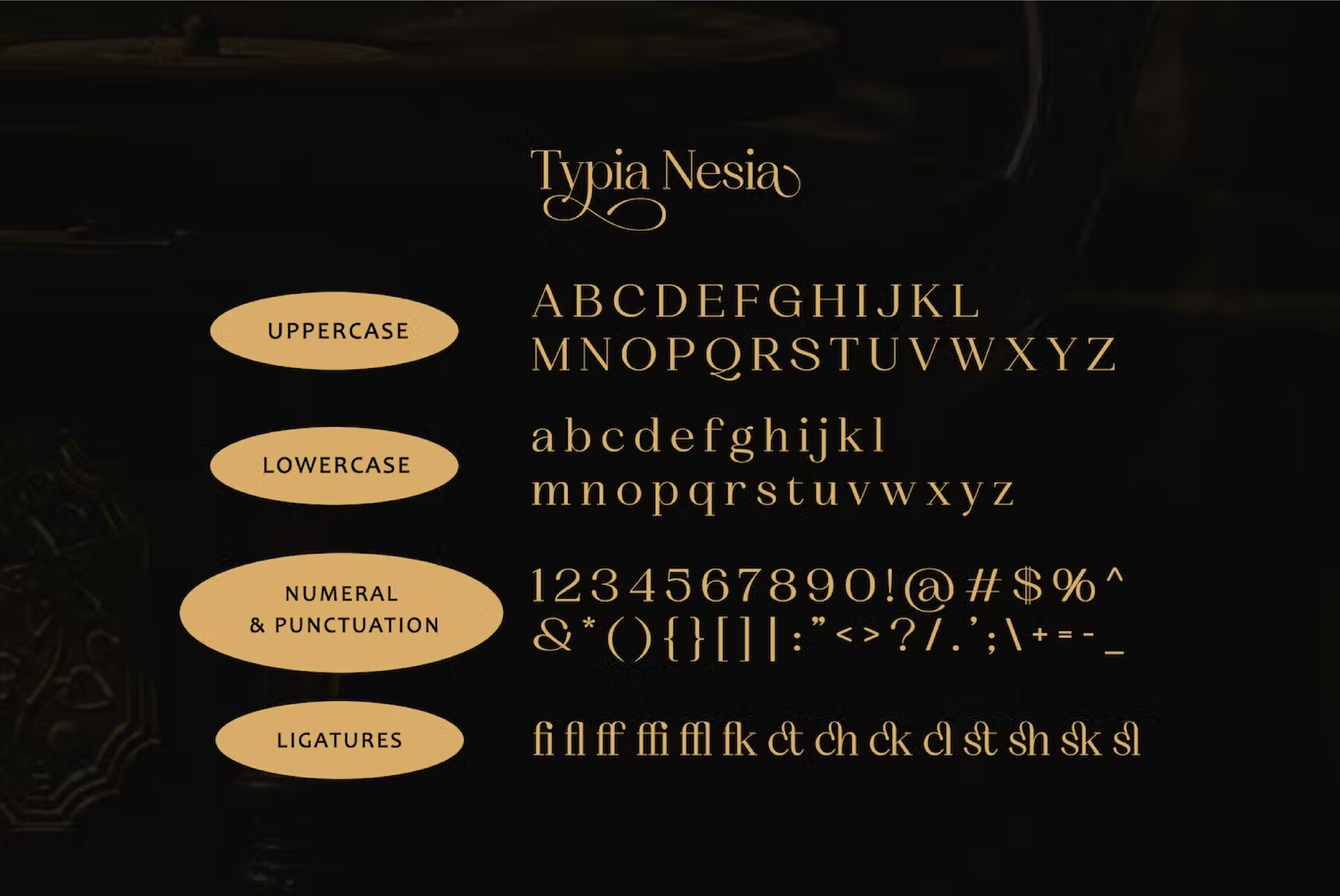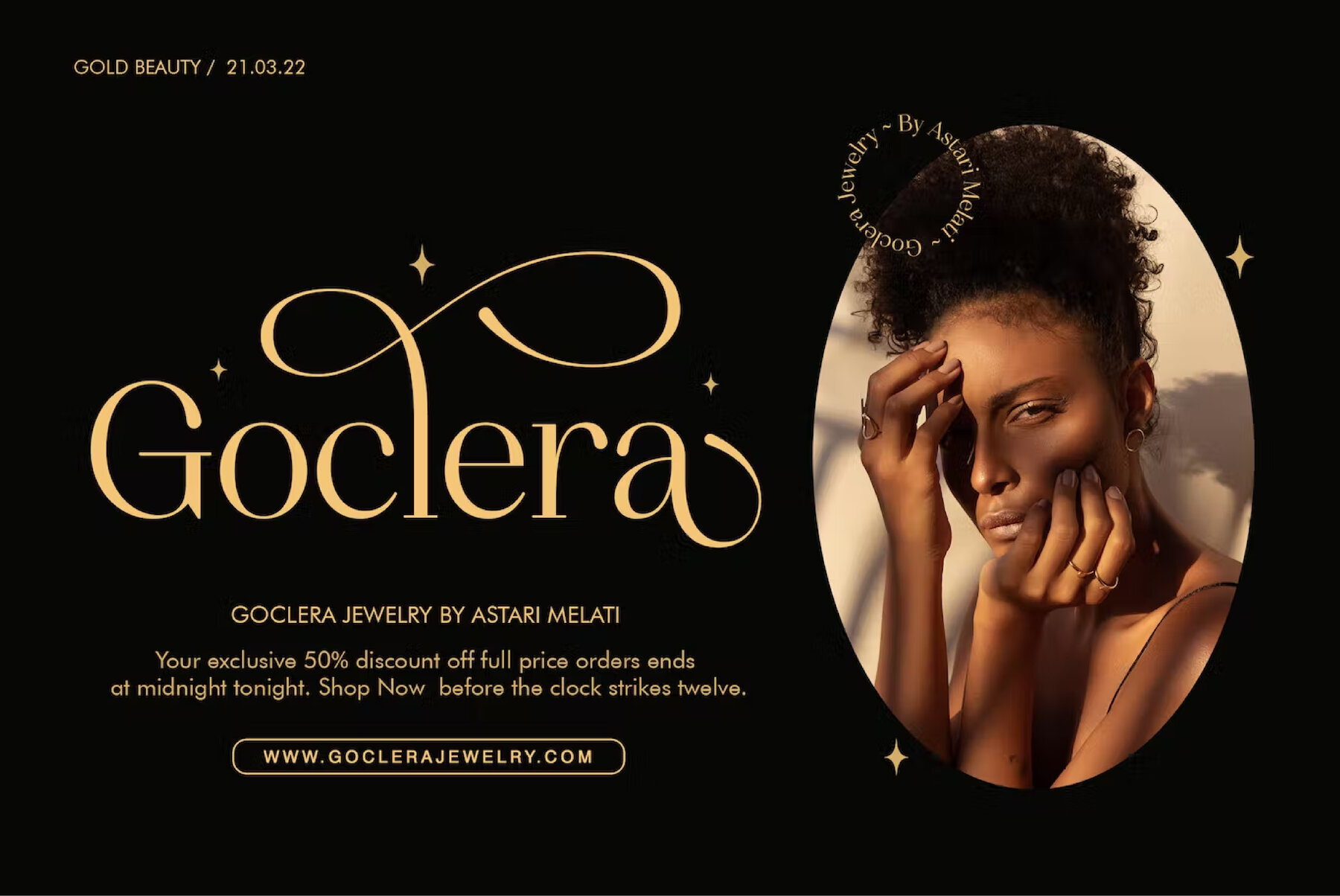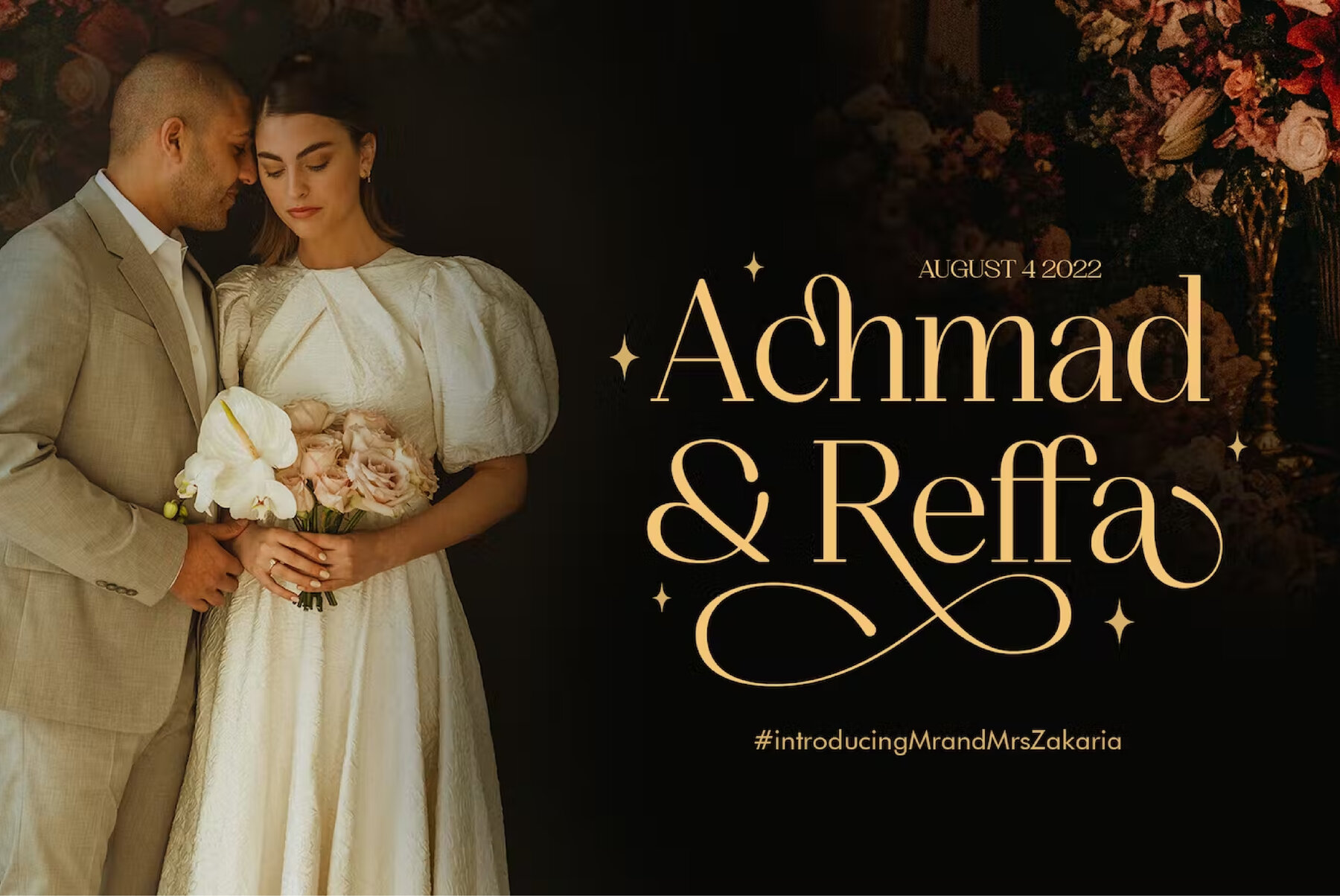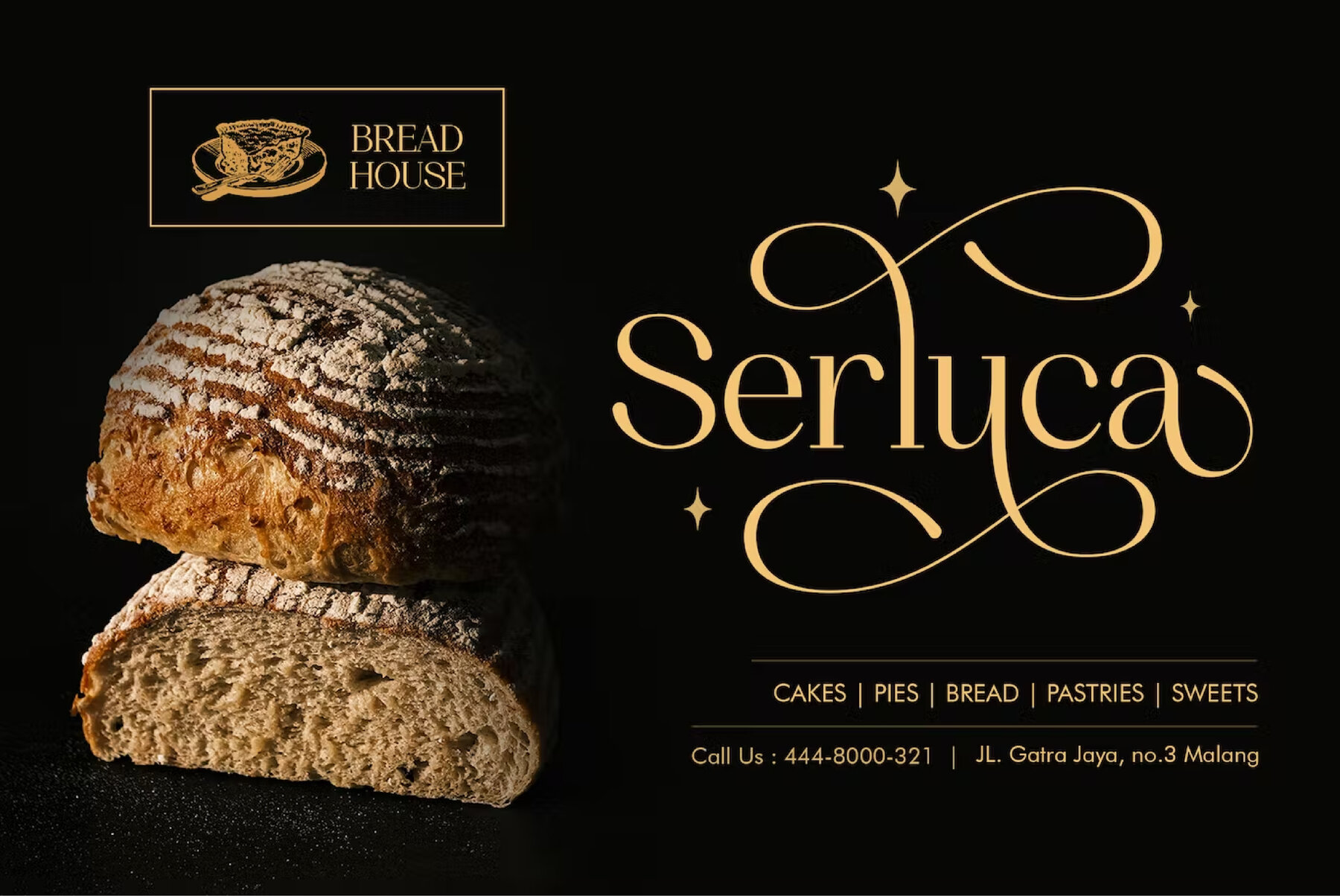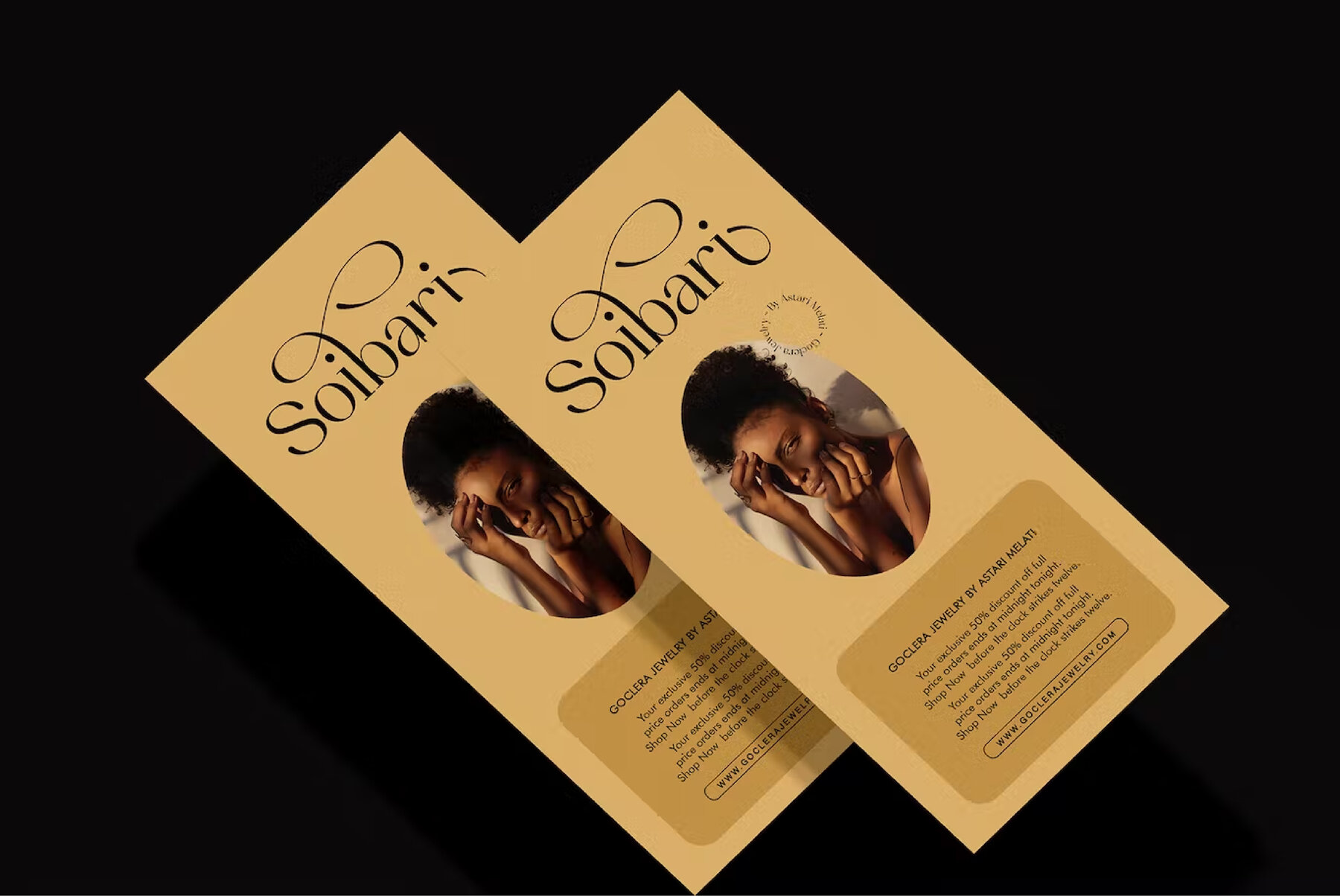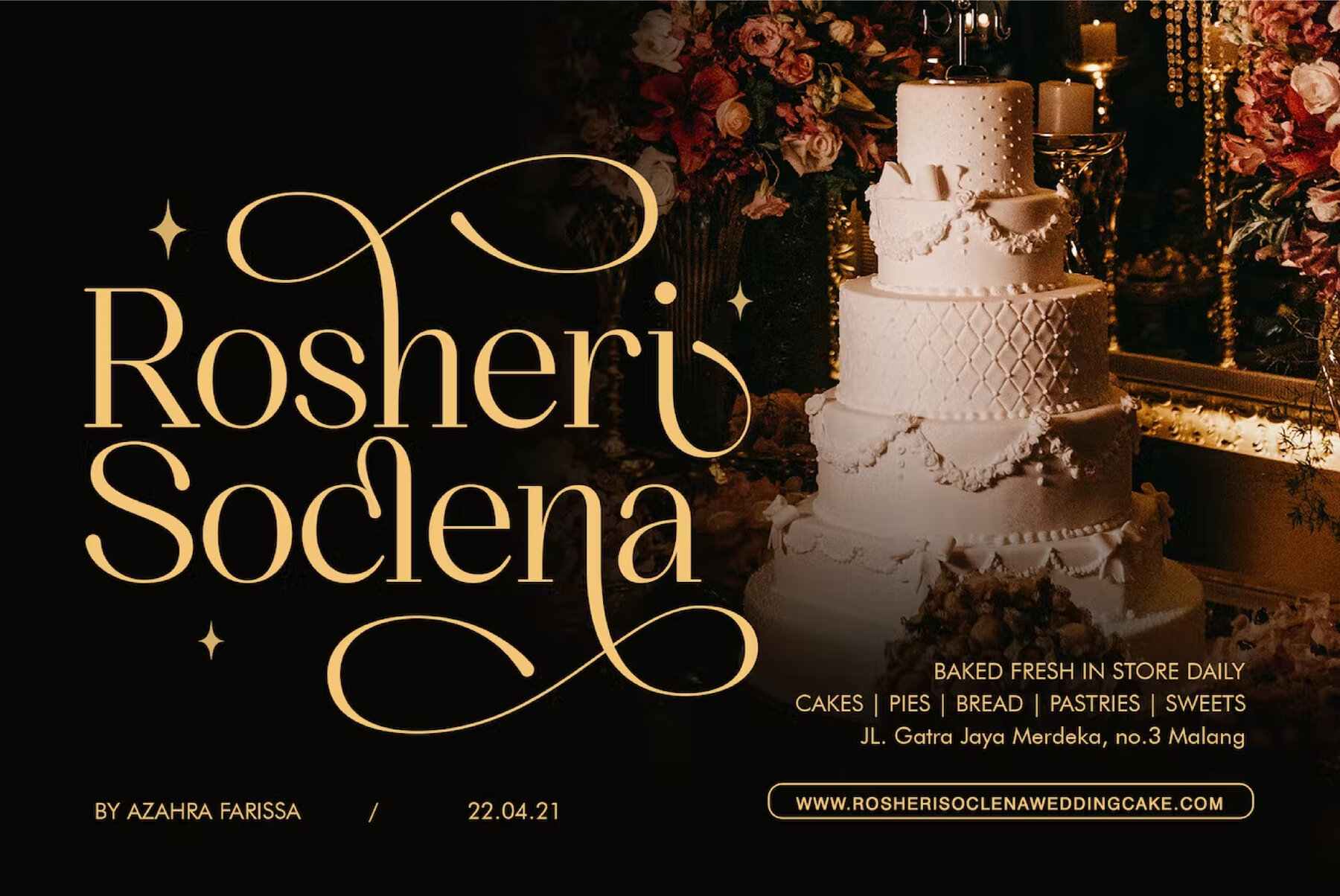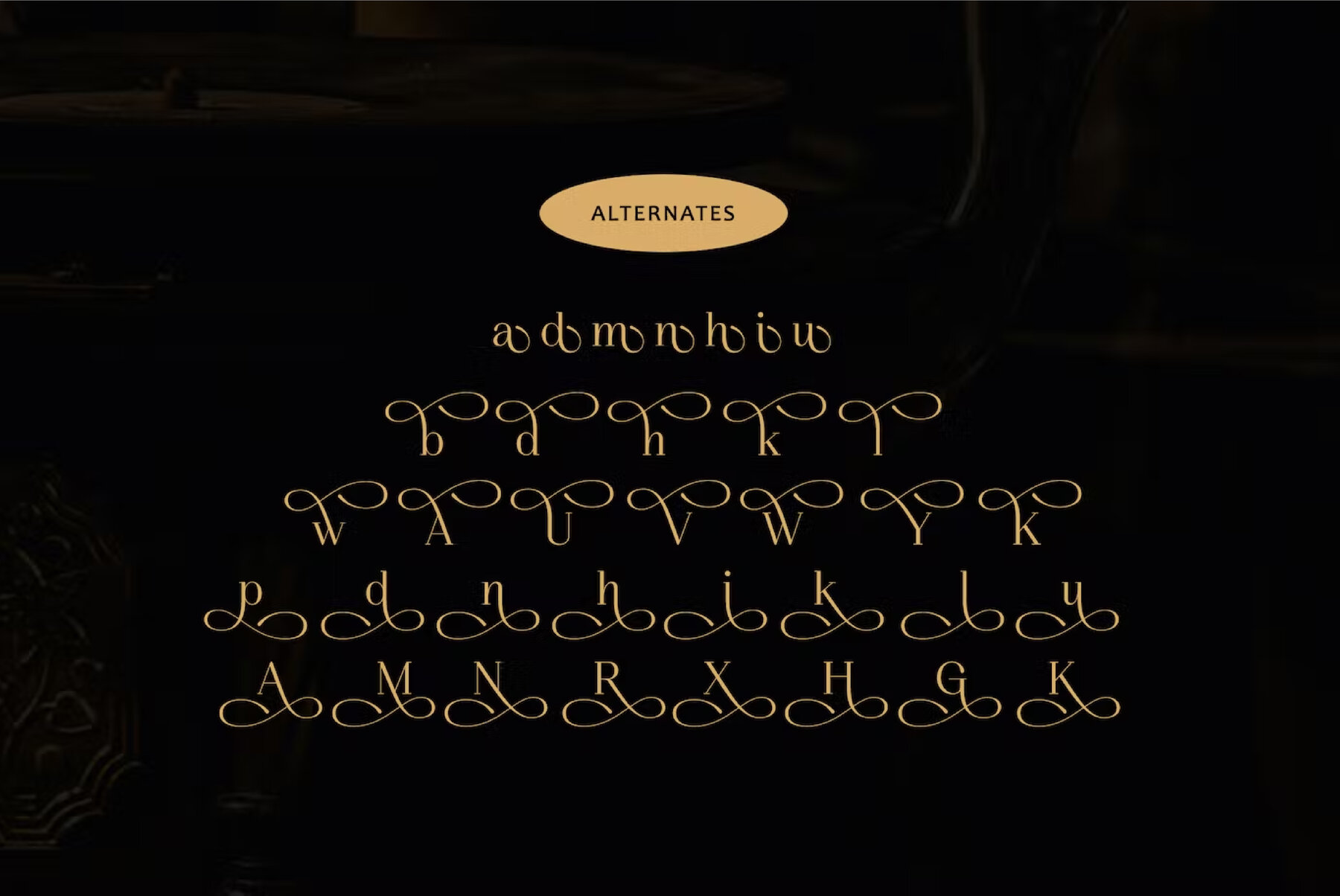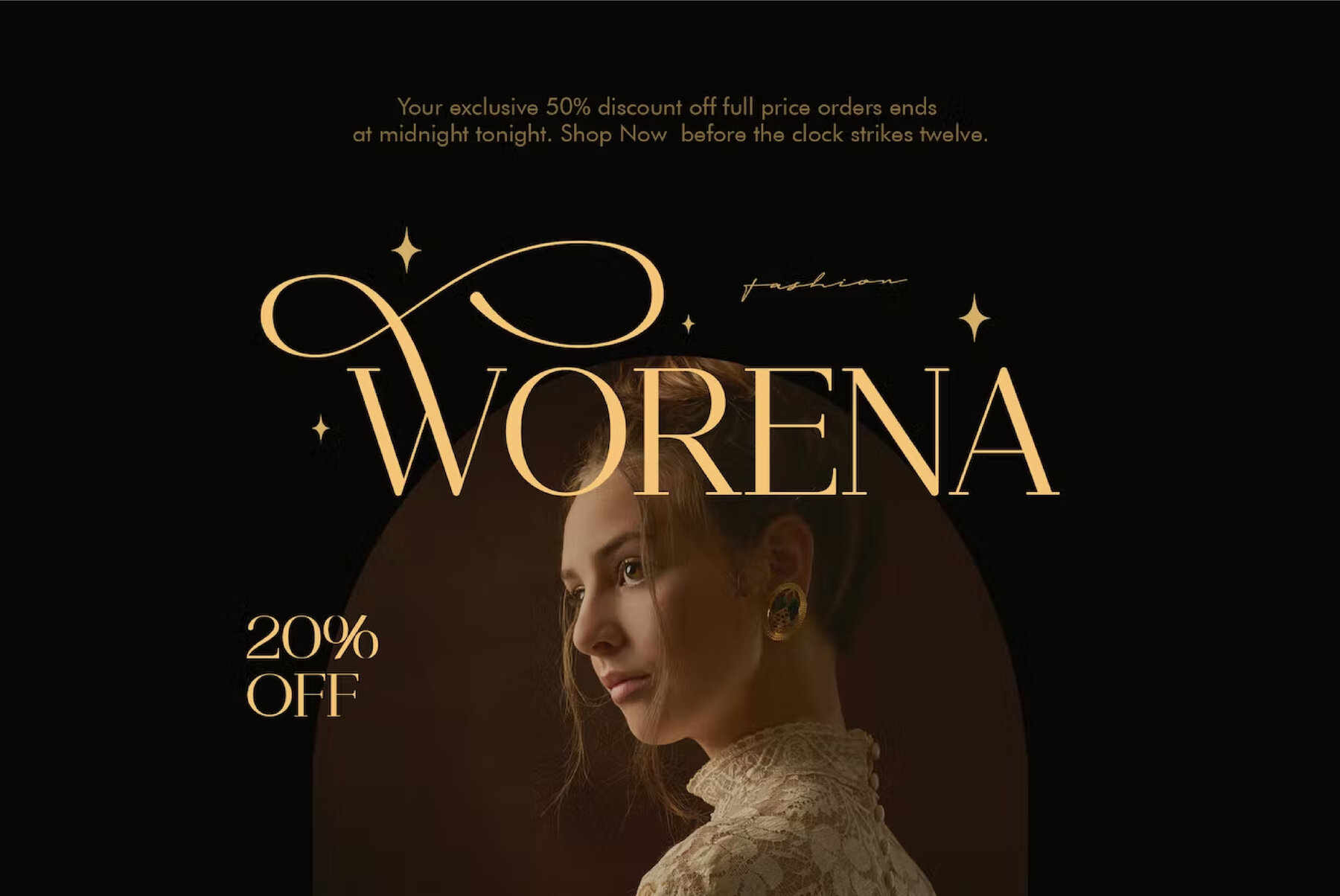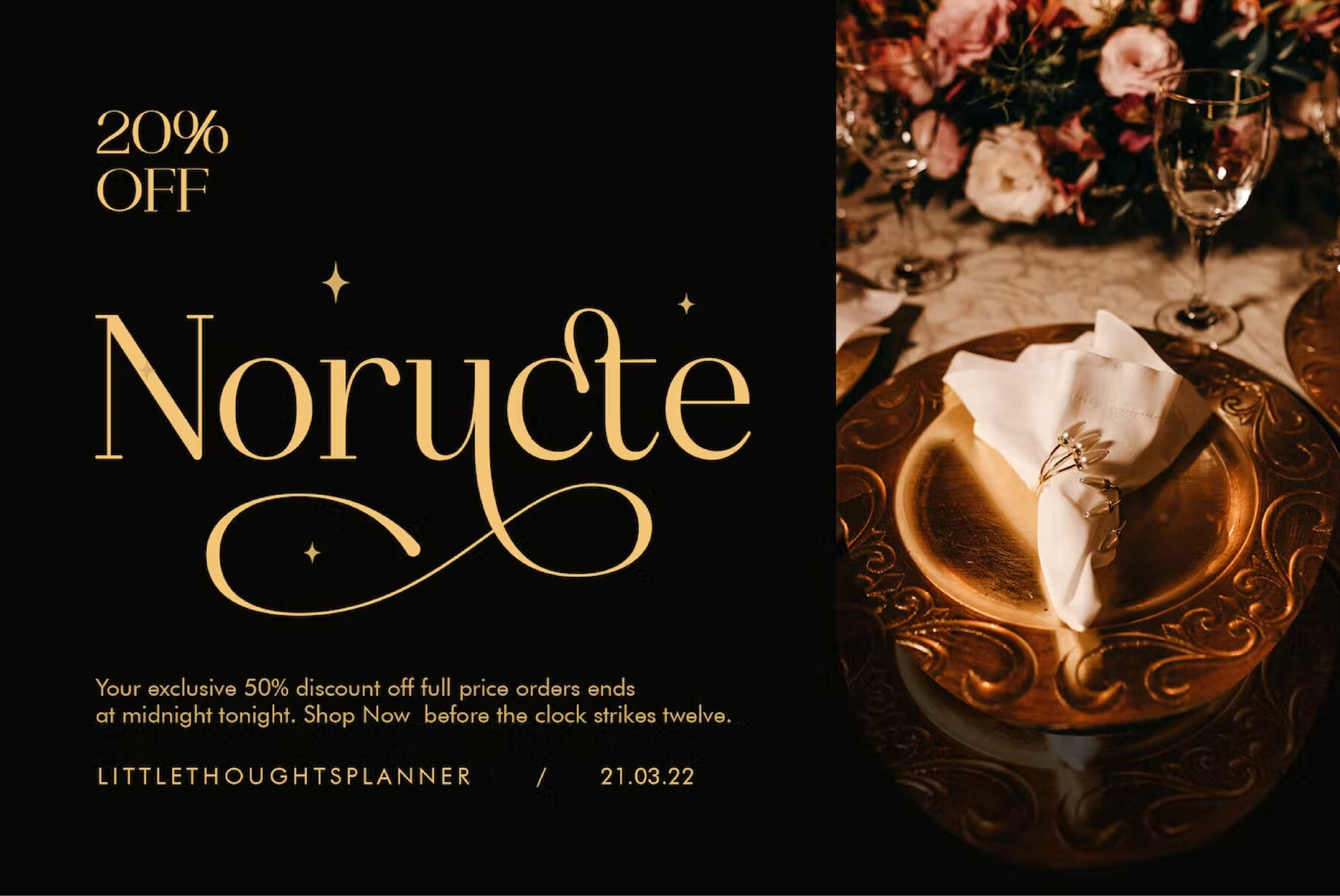
Qanduchia Font
Qanduchia Regular
Navigating the intricate world of typography, the Qanduchia font emerges as a beacon of elegance and sophistication. This serif font is meticulously crafted to exude a sense of timeless luxury, making it a distinctive choice for creative professionals seeking to elevate their design projects. With its extensive glyph variations, including ligatures, alternates, and swashes, Qanduchia offers an expansive toolkit for designers. Features: Ideal applications for Qanduchia span a variety of creative projects. It lends a touch of class to luxury logos, branding endeavors, and sophisticated editorial designs. Whether you're working on a women's magazine, a cosmetic brand promotion, or a high-end boutique identity, this font enhances the visual narrative. Additionally, Qanduchia is an excellent choice for art gallery branding, museum labels, historical architecture documentation, and much more.Qanduchia: A Classic Luxury Serif with Elegant Swashes